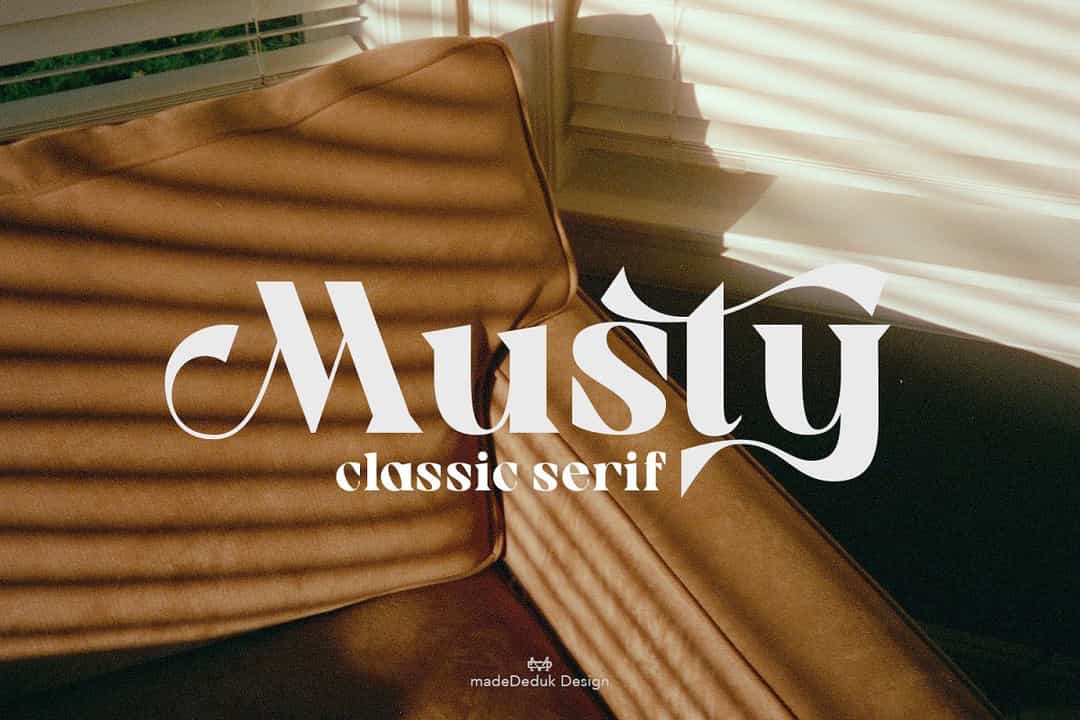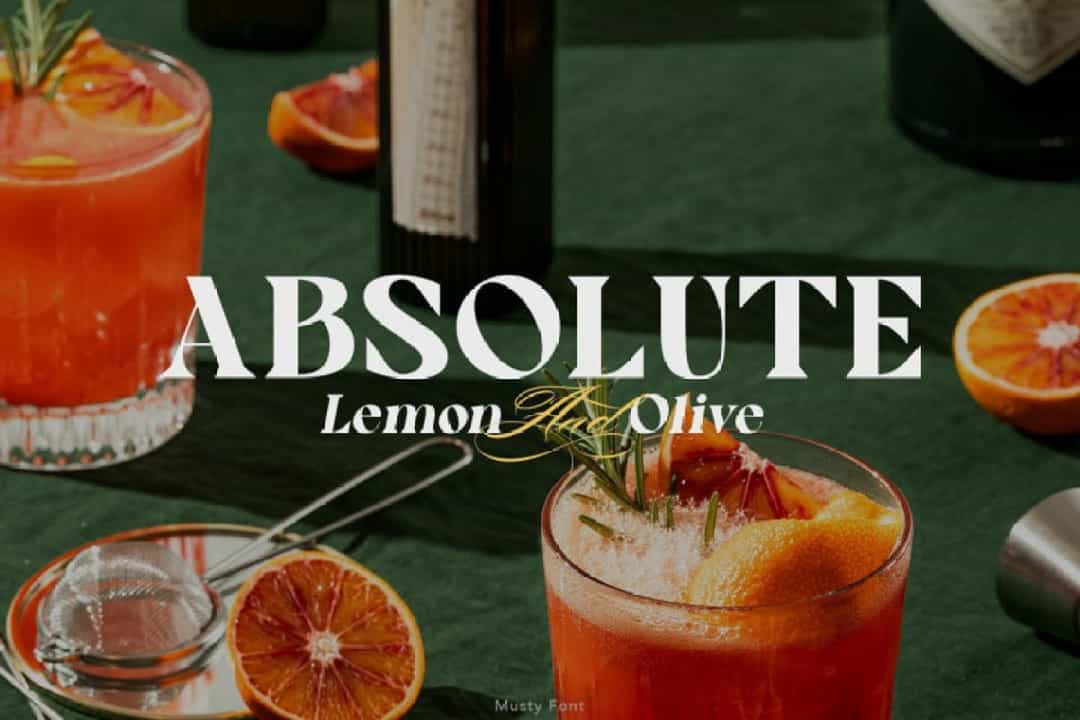
Musty is a classic serif font with nice touch of the personality, simple and easily readable regardless of the age. It features only one weight, however, it is very communicative and has a clear, distinctive visual design. Ideal for use when you want to incorporate the traditional and sophistication features into your project.